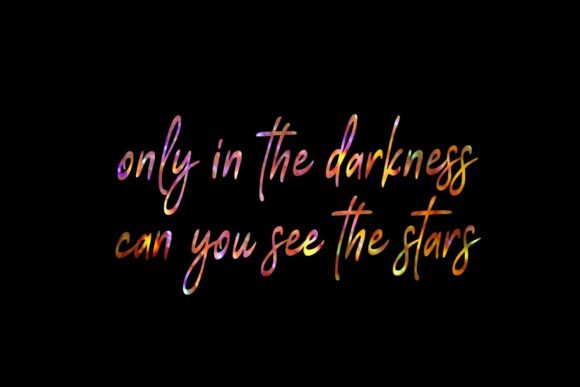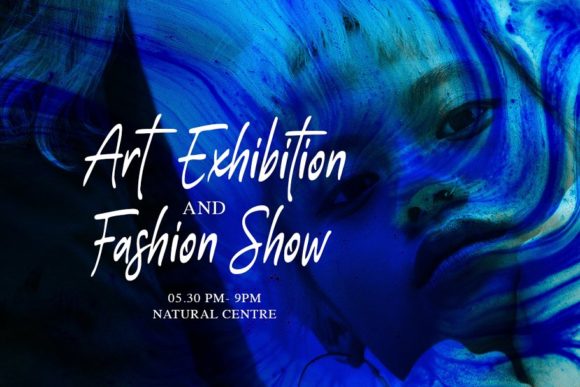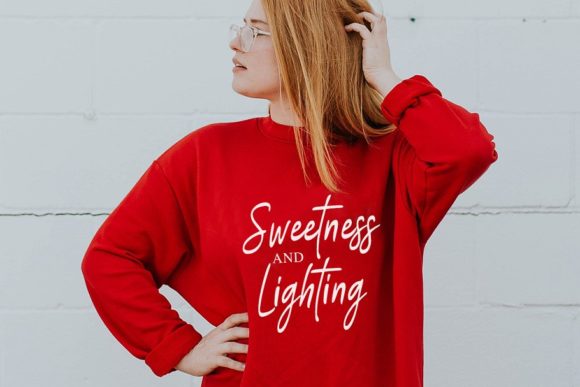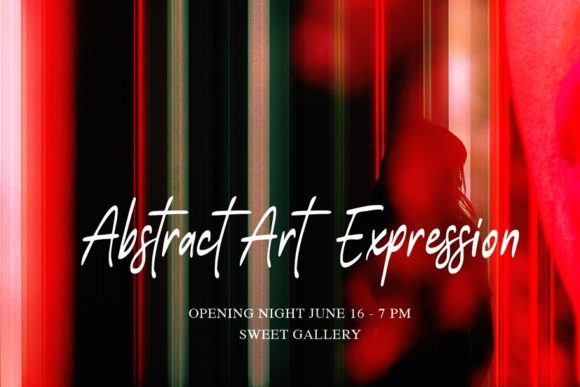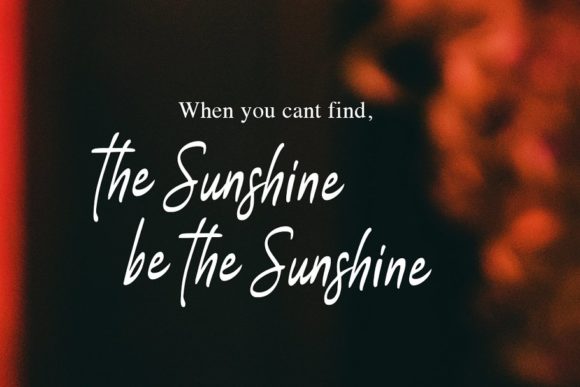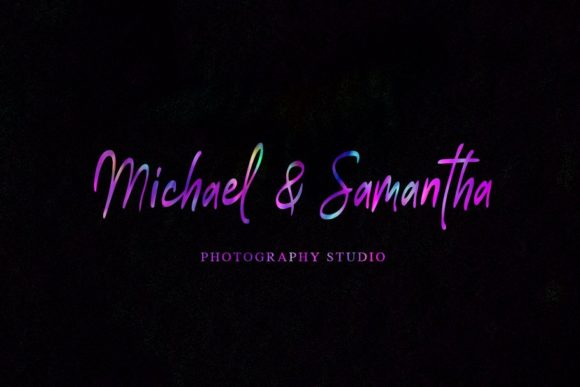
Gistela Font: A Handwritten Script that Radiates Authenticity and Style
Are you a designer or crafter looking for a font that can add a touch of personality and whimsy to your projects? Look no further than Gistela, a beautiful handwritten script that exudes authenticity and style. With its cute feel and versatile design, Gistela is the perfect choice for anyone looking to add a dash of charm to their work.
The Story Behind Gistela
Gistela is a carefully crafted font that is designed to evoke a sense of nostalgia and playfulness. Its handwritten script is reminiscent of a bygone era, when letters were written with love and care. The font’s creator has poured their heart and soul into designing a typeface that is both elegant and approachable, making it perfect for a wide range of applications.
What Makes Gistela So Special?
So, what sets Gistela apart from other fonts? Here are just a few things that make it truly special:
• Authenticity: Gistela is a genuine handwritten script that is free from the stiffness of digital fonts. Its imperfections and quirks make it feel more human and relatable.
• Style: Gistela has a unique and captivating style that is sure to turn heads. Its elegant loops and flourishes add a touch of sophistication to any project.
• Cute Feel: Gistela’s playful and charming design makes it perfect for projects that require a touch of whimsy and fun.
• Versatility: Gistela is a versatile font that can be used for a wide range of applications, from branding and packaging to invitations and crafts.
How to Use Gistela in Your Projects
Gistela is a flexible font that can be used in a variety of ways. Here are a few ideas to get you started:
• Branding and Packaging: Use Gistela to create custom logos, labels, and packaging that stands out from the crowd.
• Invitations and Stationery: Add a touch of elegance and whimsy to your invitations, cards, and stationery with Gistela.
• Crafts and DIY Projects: Gistela is perfect for crafters and DIY enthusiasts who want to add a personal touch to their projects.
• Digital Design: Use Gistela in your digital designs, such as social media graphics, blog posts, and website headers.
Tips for Getting the Most Out of Gistela
Here are a few tips for getting the most out of Gistela:
• Experiment with Different Sizes: Gistela looks great in a variety of sizes, from large headings to small body text.
• Play with Colors: Gistela pairs well with a range of colors, from bright and bold to soft and pastel.
• Add Texture and Patterns: Add texture and patterns to your designs to give them an extra layer of depth and interest.
Gistela is a truly unique and captivating font that is sure to fall in love with. Its handwritten script, cute feel, and versatile design make it perfect for designers and crafters who want to add a touch of personality and style to their projects. Whether you’re looking to create custom branding, invitations, crafts, or digital designs, Gistela is the perfect choice. So why wait? Fall in love with Gistela today and take your designs to the next level!